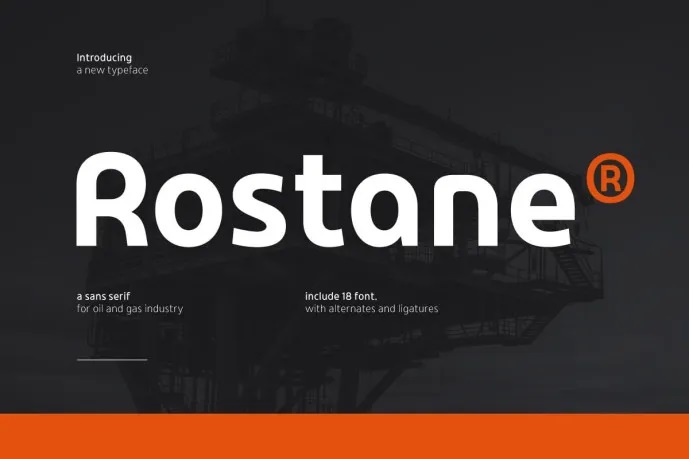
Rostane Font Family
Rostane is a modern sans-serif typeface that brings a strong, professional, and industrial look to your brand. With bold letters, balanced shapes, and a clean style, it works well for energy companies, oil and gas businesses, engineering firms, manufacturers, logistics providers, and industrial tech brands.
Rostane takes inspiration from engineering and heavy industry, giving it a sense of reliability, strength, and excellence. It stands out in headlines, branding, websites, annual reports, presentations, packaging, and marketing materials where a confident and authoritative look is important.
If you want to build a global energy brand or create a modern industrial identity, Rostane gives you the professional typography you need to earn trust, credibility, and lasting brand recognition.
Rostane Sans Serif Font Family